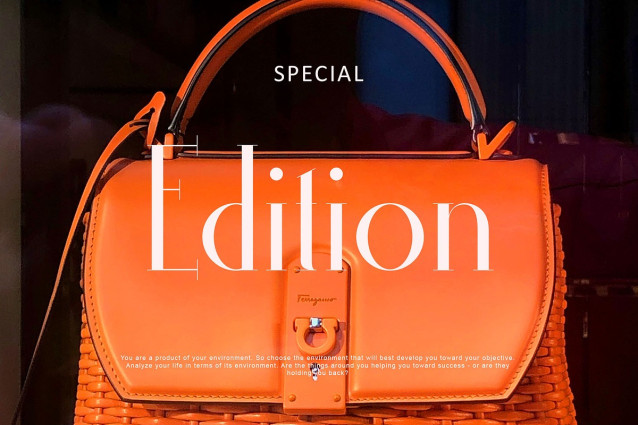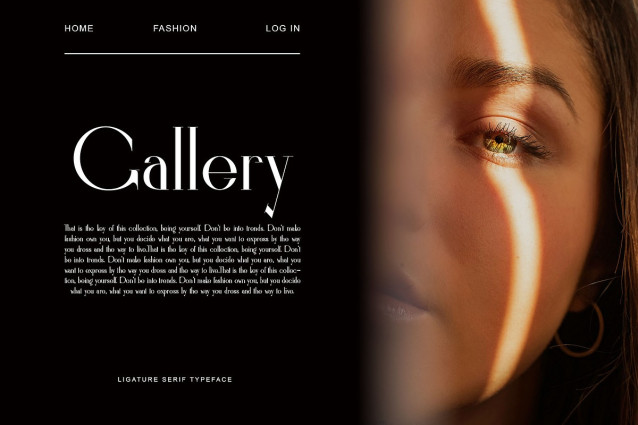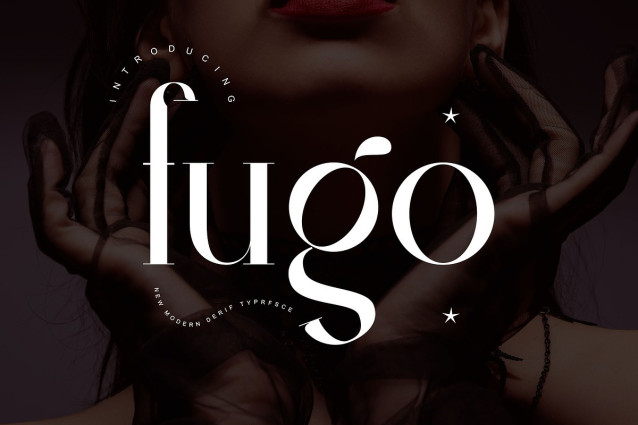
Fugo Font
Fugo Font is a elegant and classy serif typeface – This font is both modern and nostalgic and works great for logos, magazine, social media. Already matched up and ready to be used together for your next design! For those of you who are needing a touch of elegant, stylish, classy, chic and modernity for your designs, this font was created for you!
Fugo was built with OpenType features and includes ligatures, numbers, punctuation, and it also supports other languages.